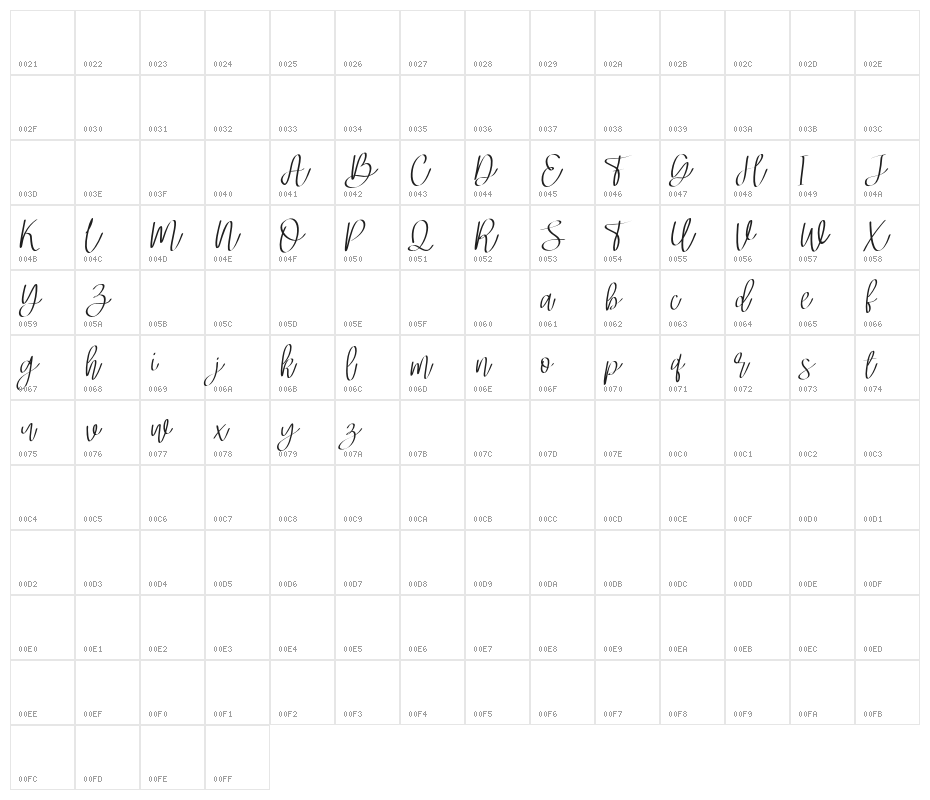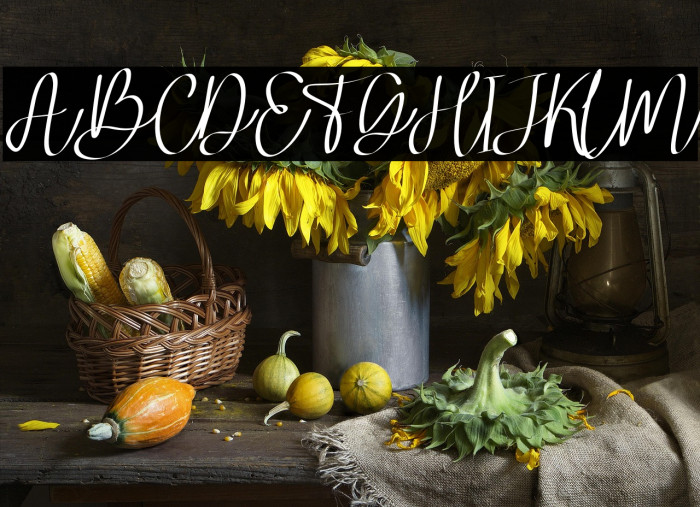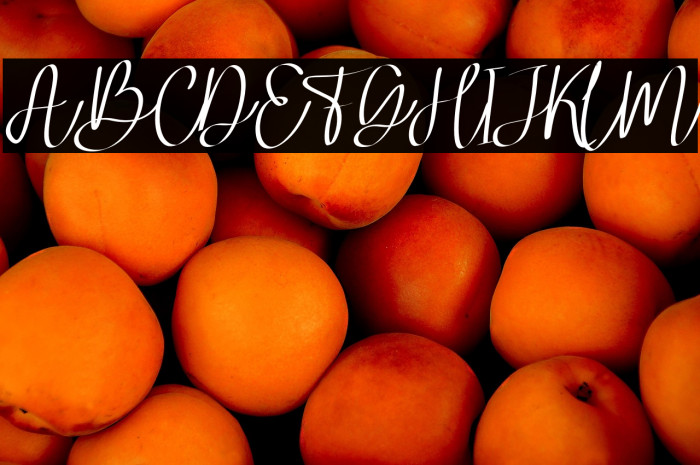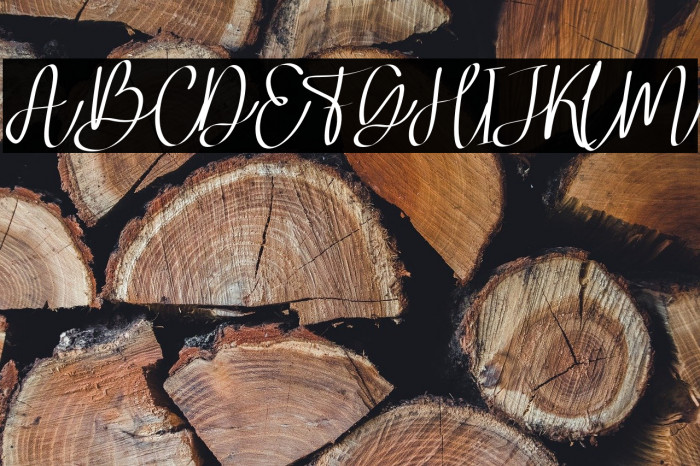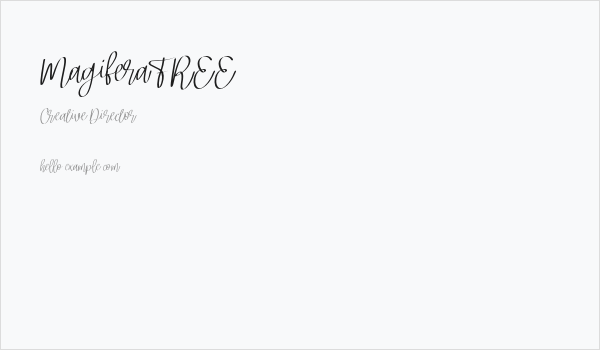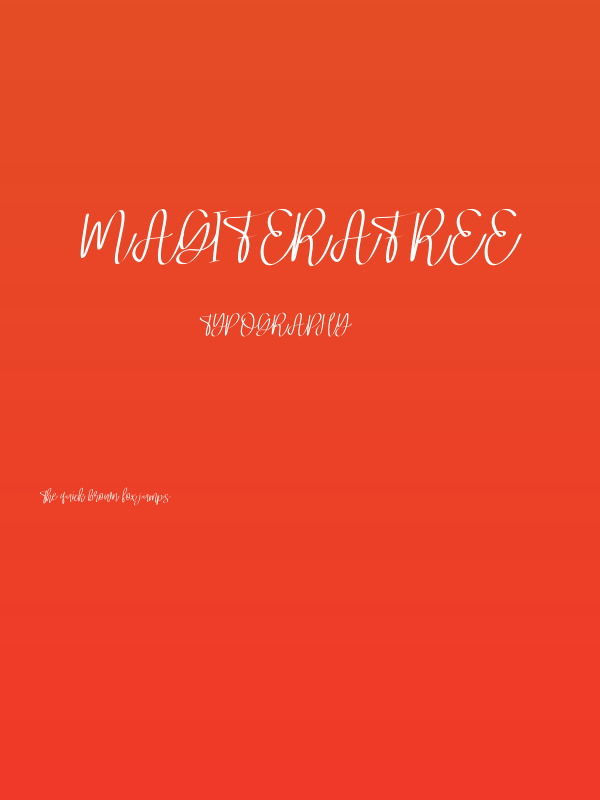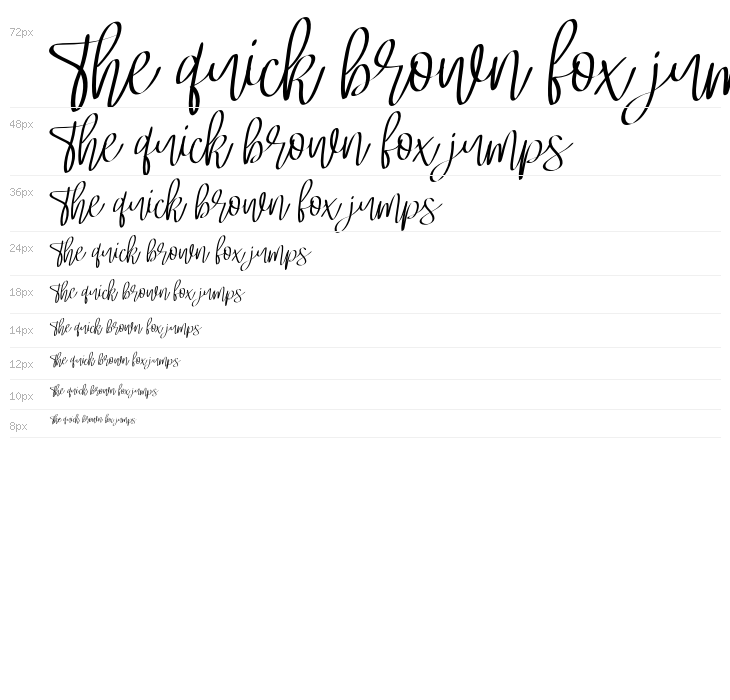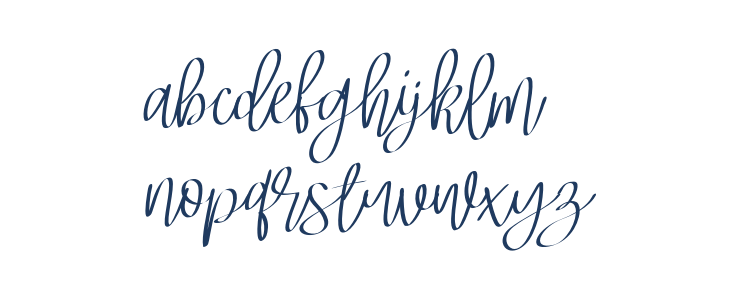
MagiferaFREE Font
MagiferaFREE Description
This font features an elegant and flowing script style, characterized by its smooth, cursive strokes and graceful loops. The uppercase letters are bold and prominent, with a distinctive flair that adds a touch of sophistication. The lowercase letters maintain a consistent flow, enhancing readability while preserving the decorative appeal. The numerals and special characters are designed to complement the overall aesthetic, making it suitable for a variety of creative applications. The font exudes a sense of elegance and charm, perfect for projects that require a personal and artistic touch.
| Proposed Projects | Ideal for wedding invitations, greeting cards, branding, and elegant packaging designs. |